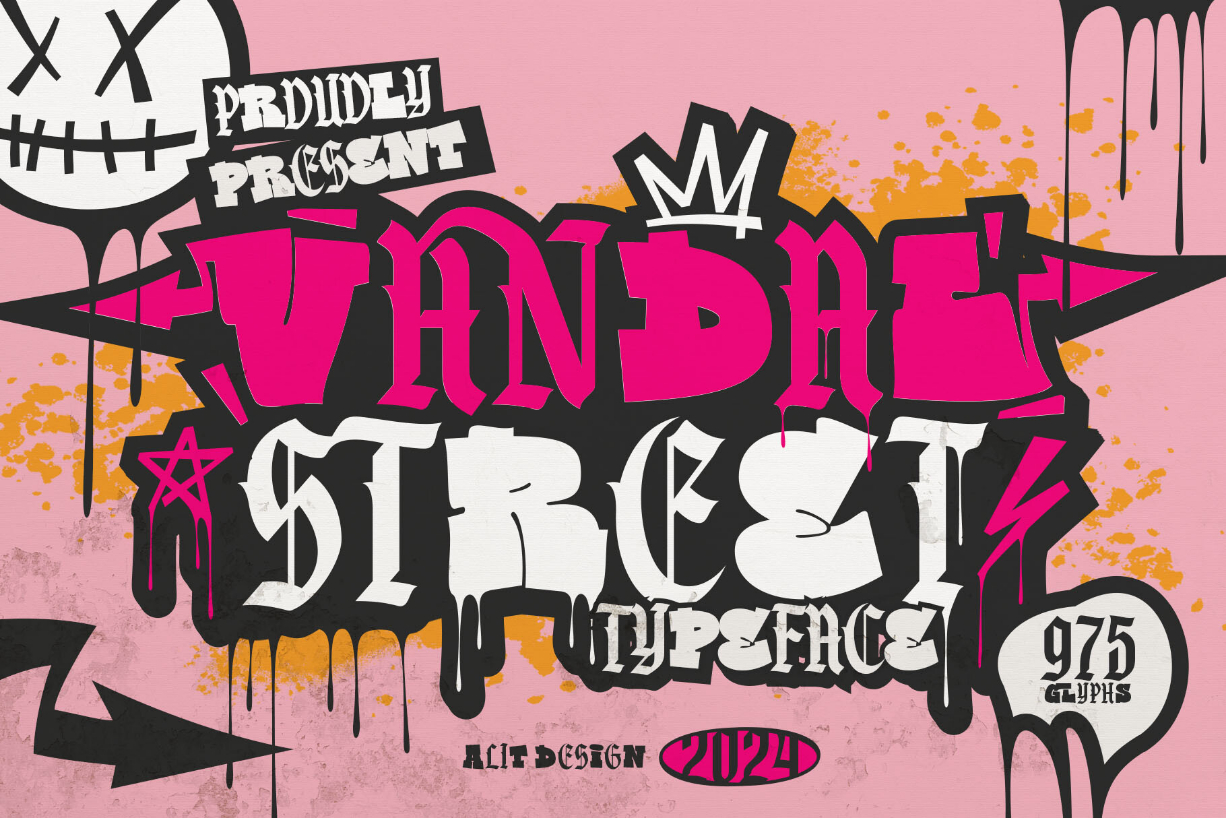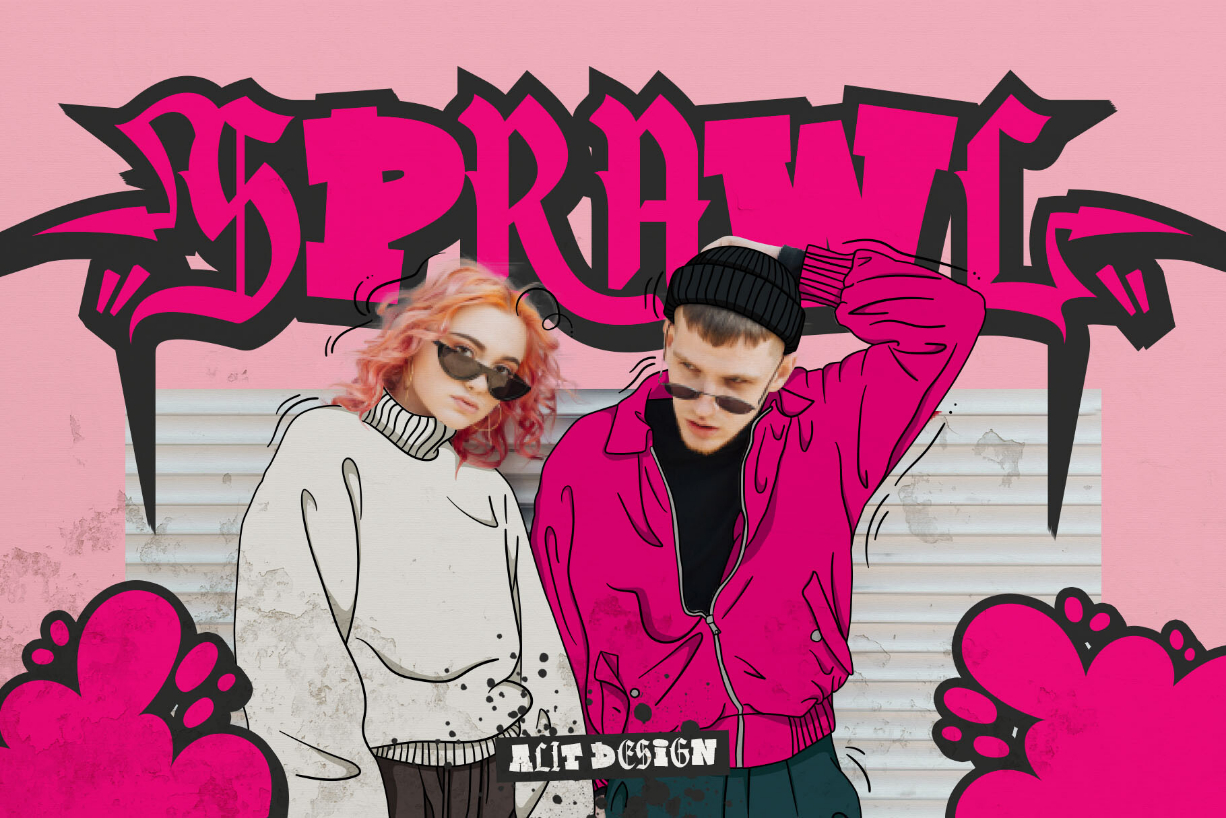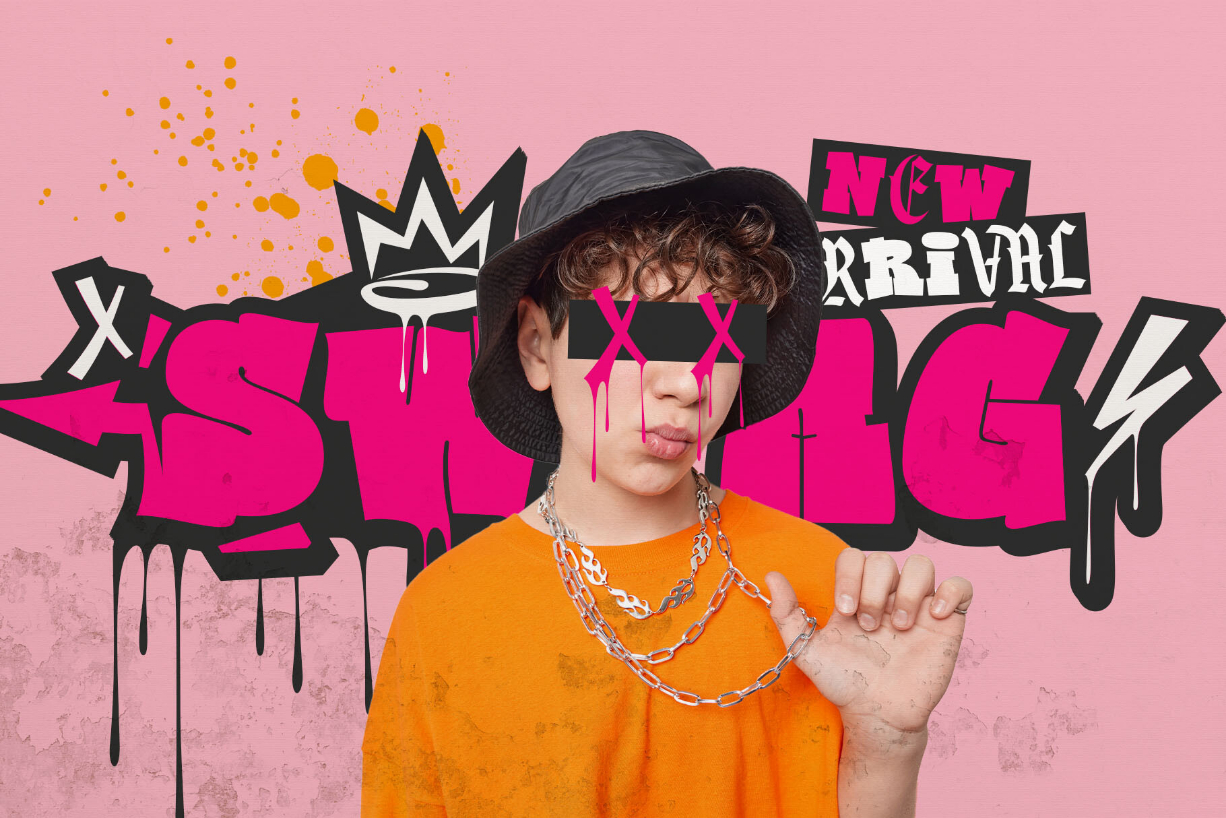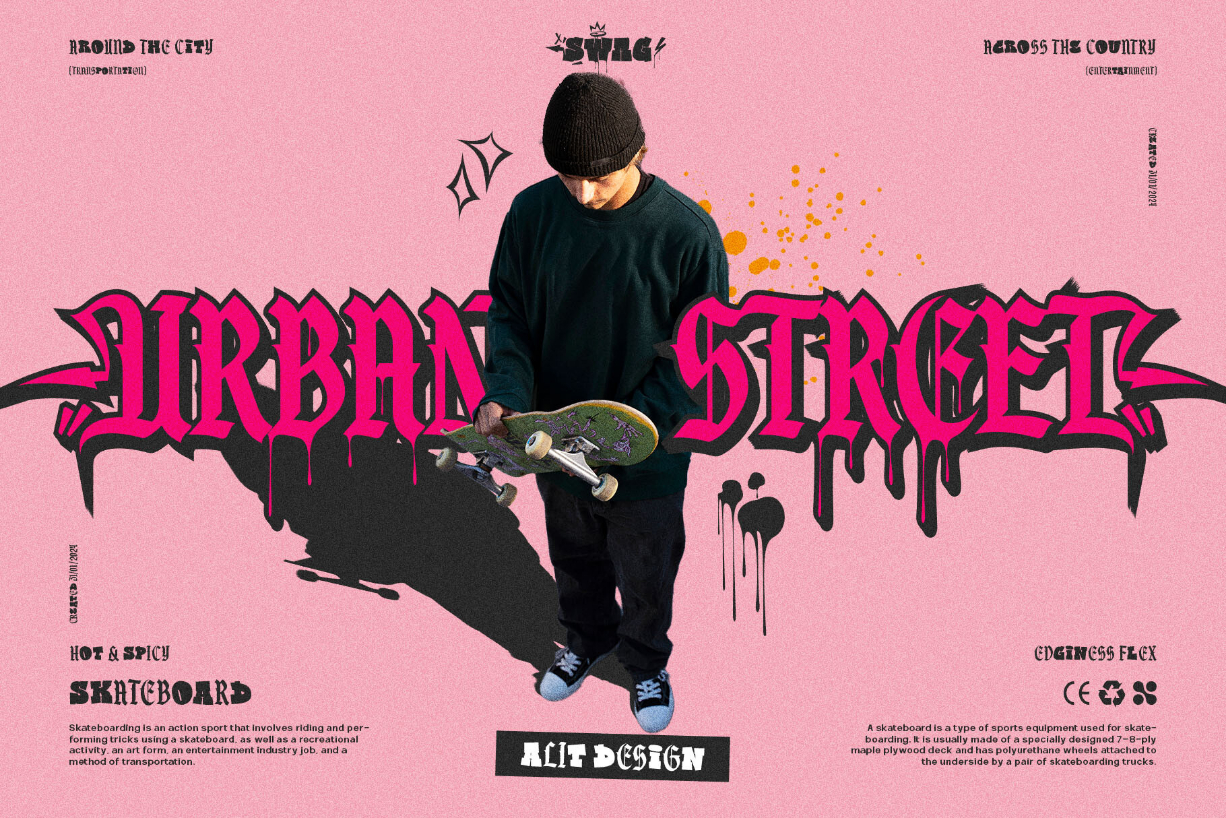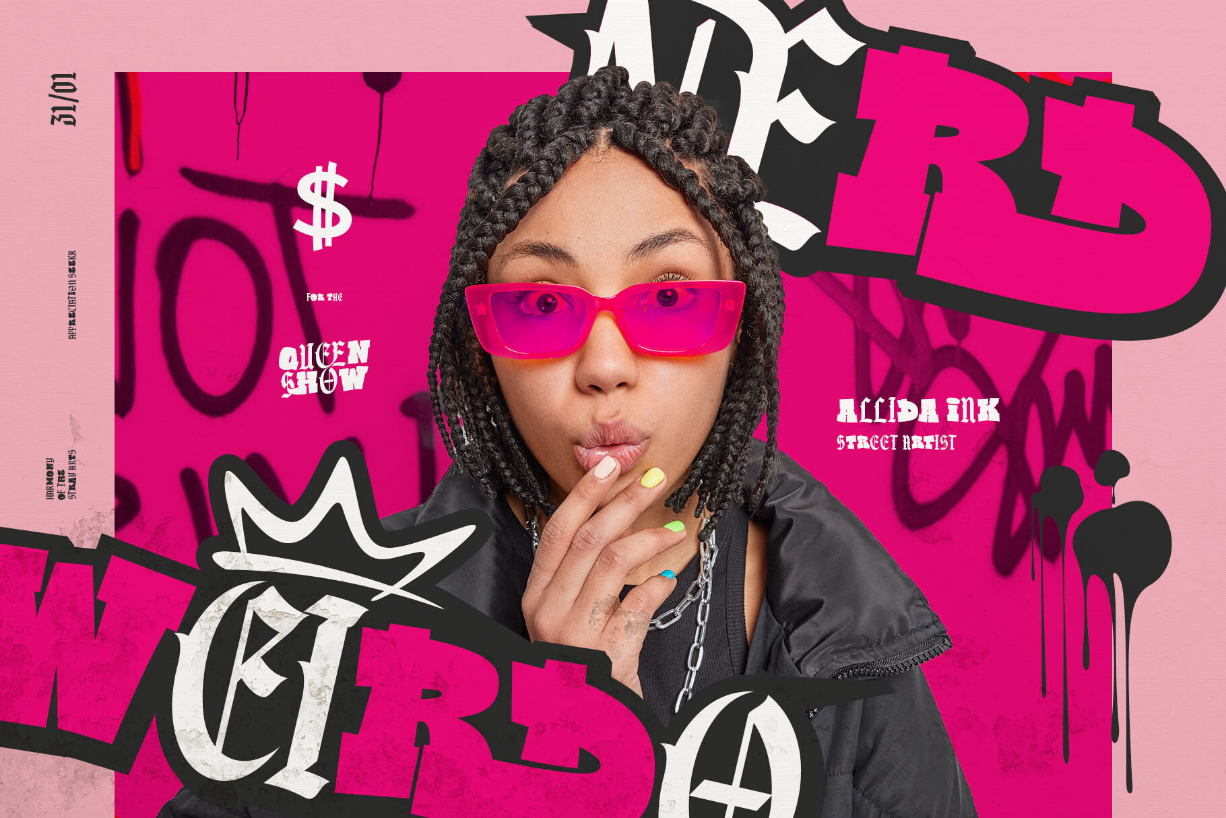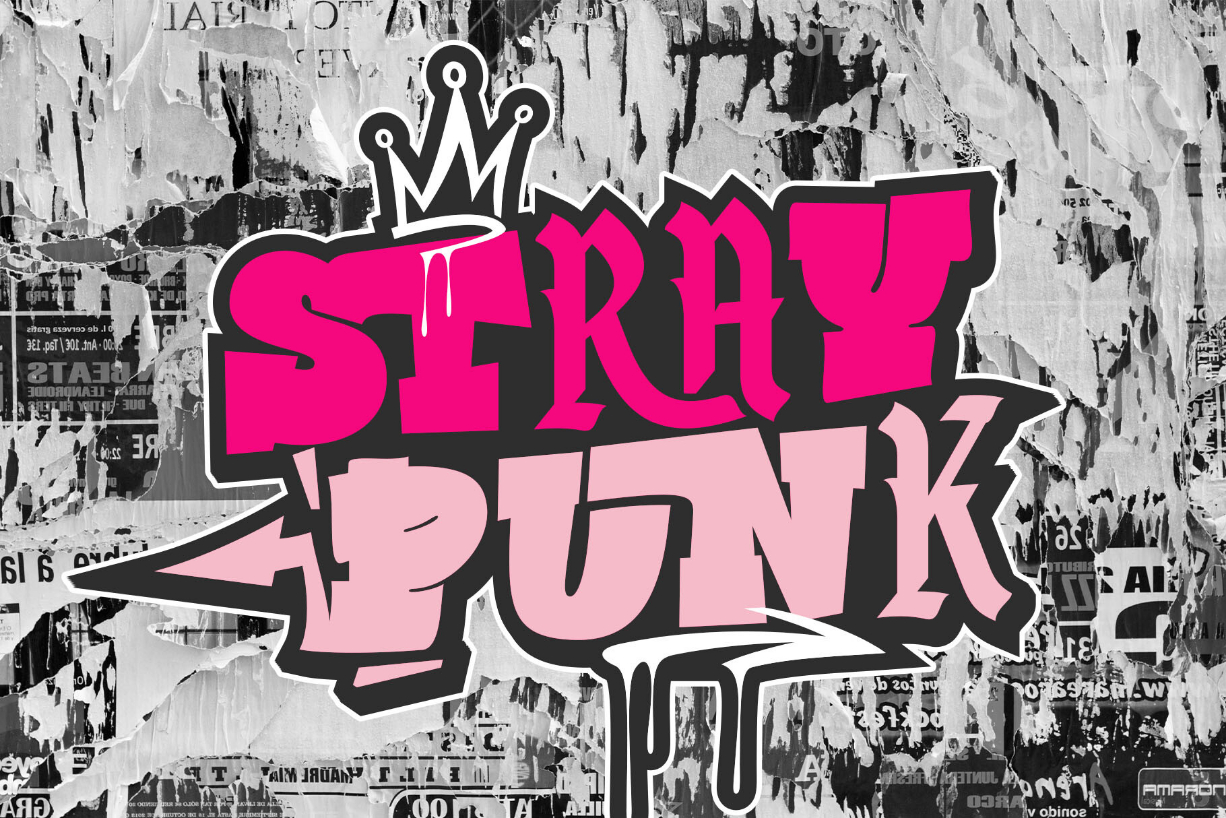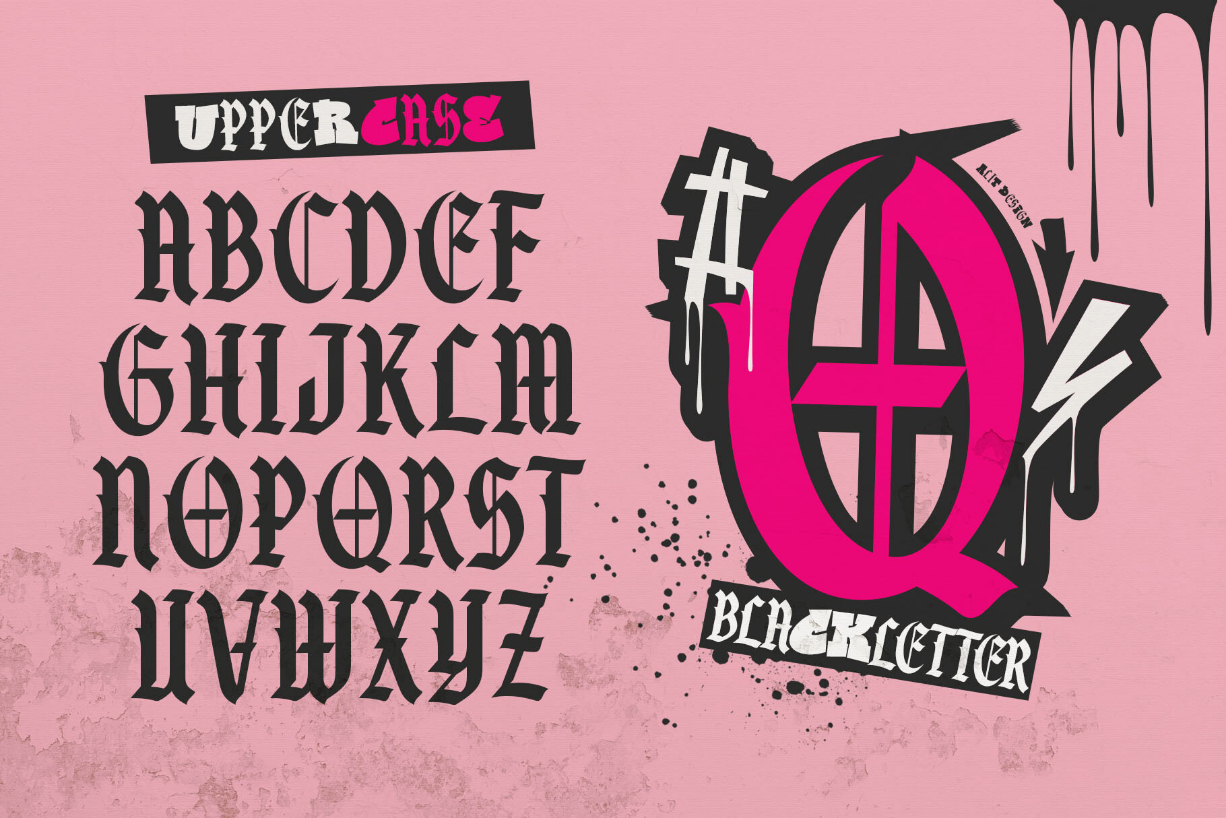
Vandal Street Graffiti Font
About Vandal Street Graffiti Font
Vandal Street Graffiti Font is a bold and expressive typeface that seamlessly blends the dynamic energy of graffiti with the intricate aesthetics of blackletter. Inspired by the raw urban culture of street art, this font exudes a rebellious spirit and urban authenticity.